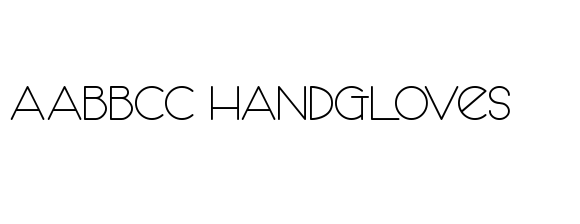
Anggun Bangkit Hutami
I making fonts with Prasetype Studio as my husband’s studio, I prefer to make fonts especially with handwritten styles. What I highlight is the natural, simple and elegant signature.. We focus on making the best for all of you. We work with original ideas and the latest stylish trends. A good font is a great design.